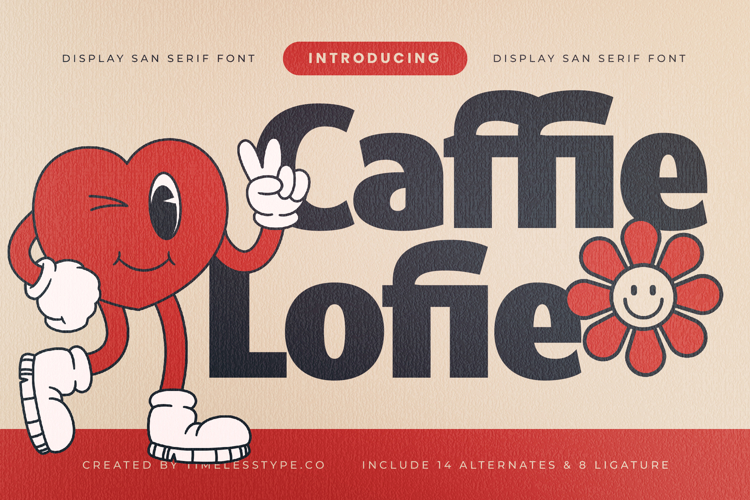
Caffie Lofie - Display Sans Serif Font
The Caffie Lofie Typeface is a display sans serif font with a bold, fun, and playful character. Featuring 14 stylistic alternates and 8 ligatures, this font offers flexibility to create typography that is expressive, cheerful, and memorable. Its thick, simple, and clean letterforms are paired with a friendly and joyful vibe, making it perfect for designs that focus on positivity, warmth, and clear visual communication.
This typeface is highly effective in editorial design, especially for creative posters, lifestyle magazines, and children’s book covers. The alternates and ligatures add variety, allowing compositions to look more dynamic and engaging.
In branding and packaging, Caffie Lofie is an excellent choice for food & beverage products, cafés, restaurants, educational toys, and youth-oriented brands. Its bold yet approachable style gives visual identities a fun, friendly, and memorable presence.
For entertainment and promotional design, this font works beautifully on event posters, creative campaigns, music festivals, and interactive promotional materials. Its bold sans serif aesthetic ensures messages are clear and attention-grabbing.
In the world of digital design, Caffie Lofie performs seamlessly across social media content, website banners, educational materials, and motion graphics, delivering typography that is fun, legible, and visually appealing on all screen sizes. With multilingual support, it is well-suited for global projects.
In short, Caffie Lofie Typeface is a sans serif display font designed for projects that require joy, warmth, and strong visual communication. Perfect for editorial, branding, packaging, entertainment, advertising, and digital campaigns, this font transforms typography into a fun, bold, and character-rich design element.